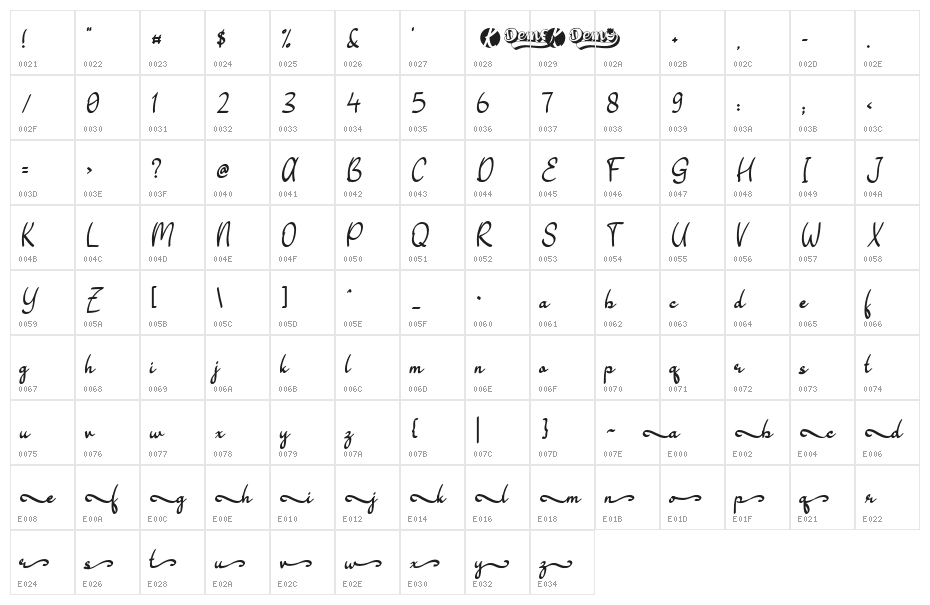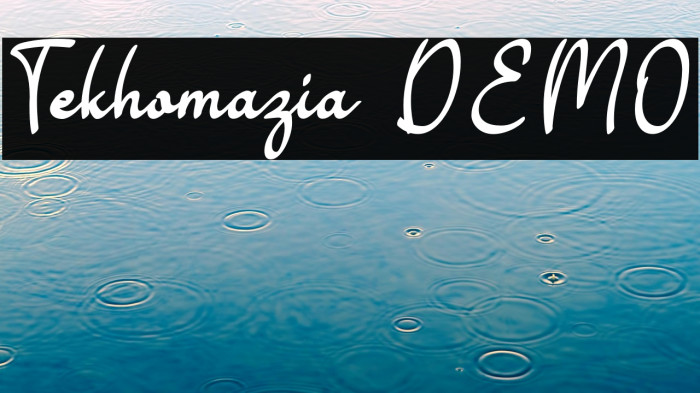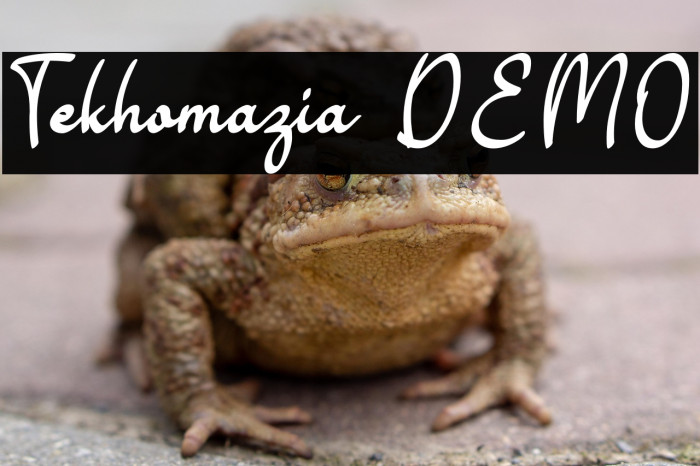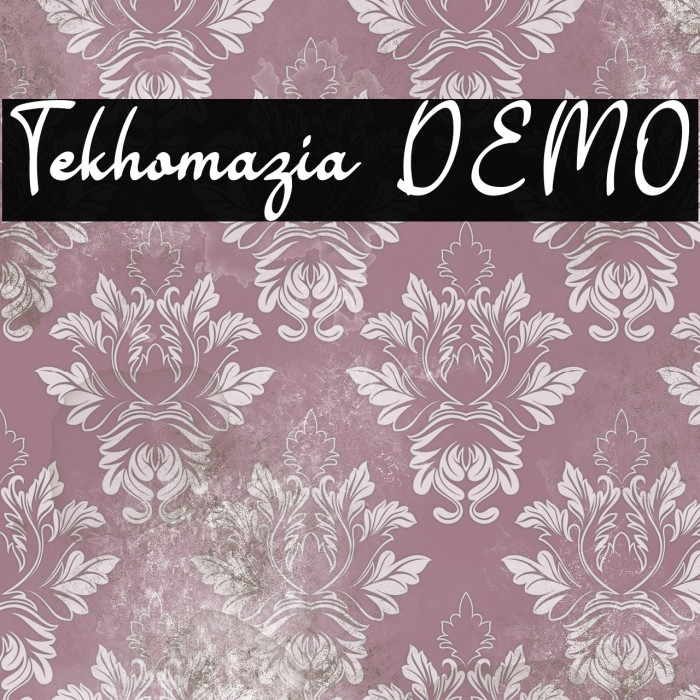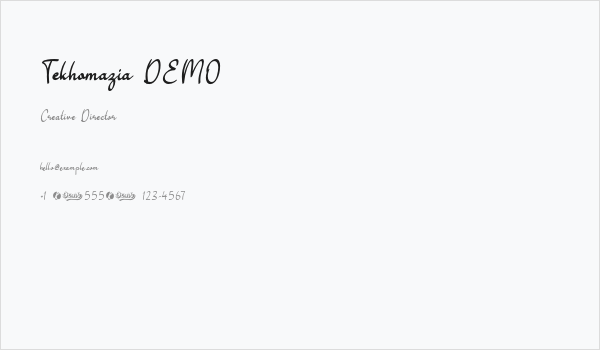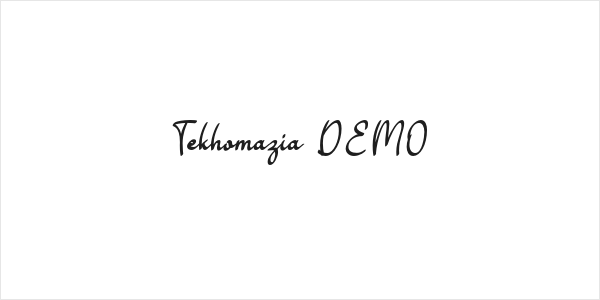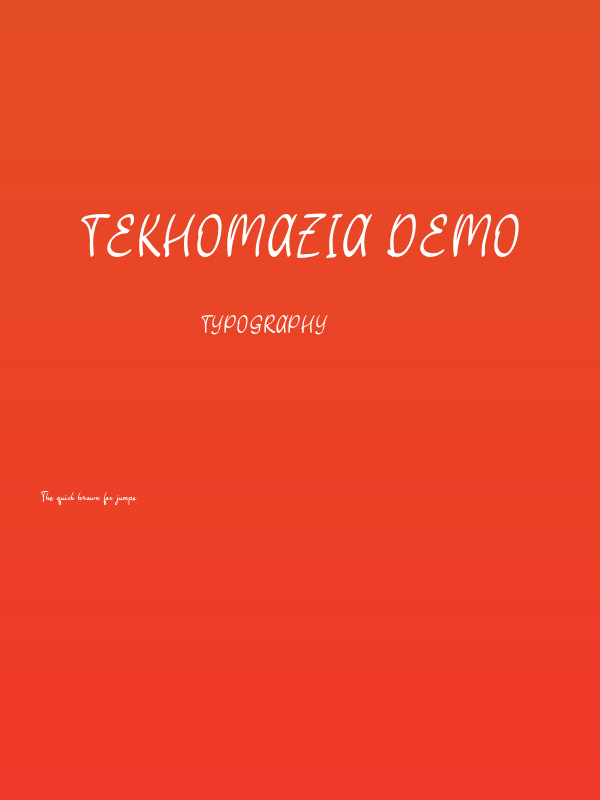
Tekhomazia DEMO Font
Tekhomazia DEMO Description
This font features a dynamic and flowing script style, characterized by its elegant and slightly whimsical curves. The uppercase letters exhibit a consistent height with smooth, rounded edges, while the lowercase letters maintain a fluid connection, enhancing readability. The numerals are bold and slightly rounded, complementing the overall aesthetic. Special characters are creatively designed, adding a playful touch to the font. The font's unique style makes it suitable for a variety of creative projects, offering a blend of sophistication and charm.